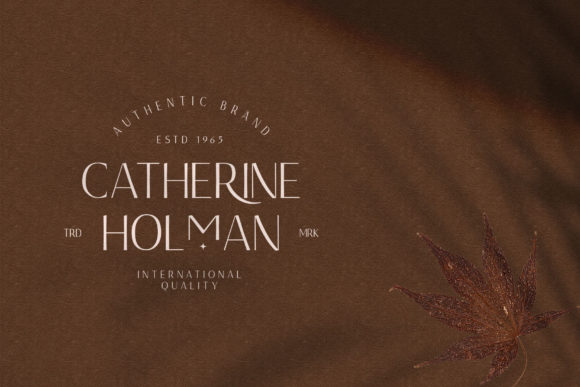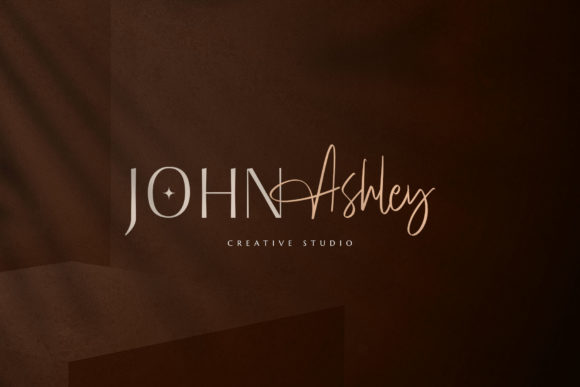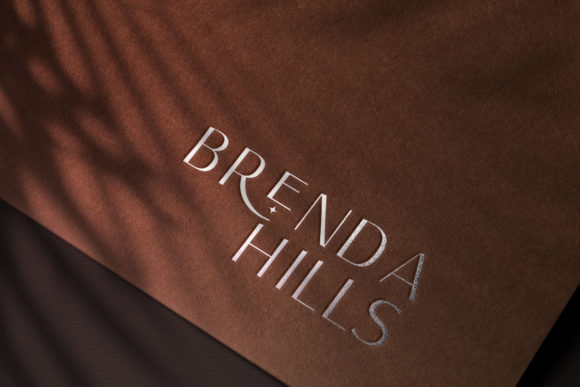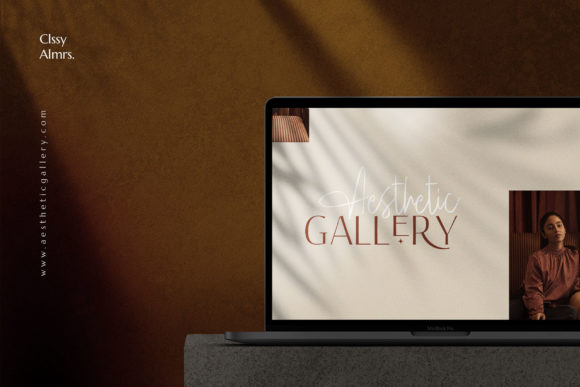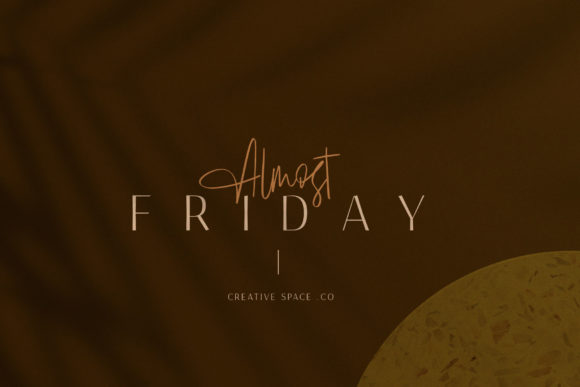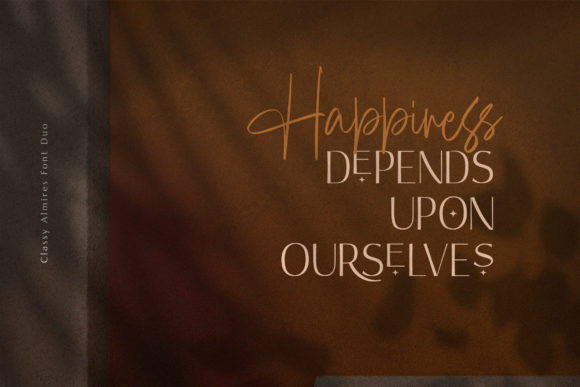
Introduction to Classy Almires Font
Classy Almires is a stunning duo font (script and sans serif).
Perfect for making bold and stylish statements – or adding a touch of class to your designs like for branding, logos, invitation, mastheads, and more This font looks incredibly adept on a wide variety of contexts.
Key Features of Classy Almires Font
Why Choose Classy Almires Font?
Classy Almires Font offers exceptional quality and versatility, making it a valuable addition to your design toolkit. Whether you’re creating for personal projects or commercial use, Classy Almires Font delivers professional results.